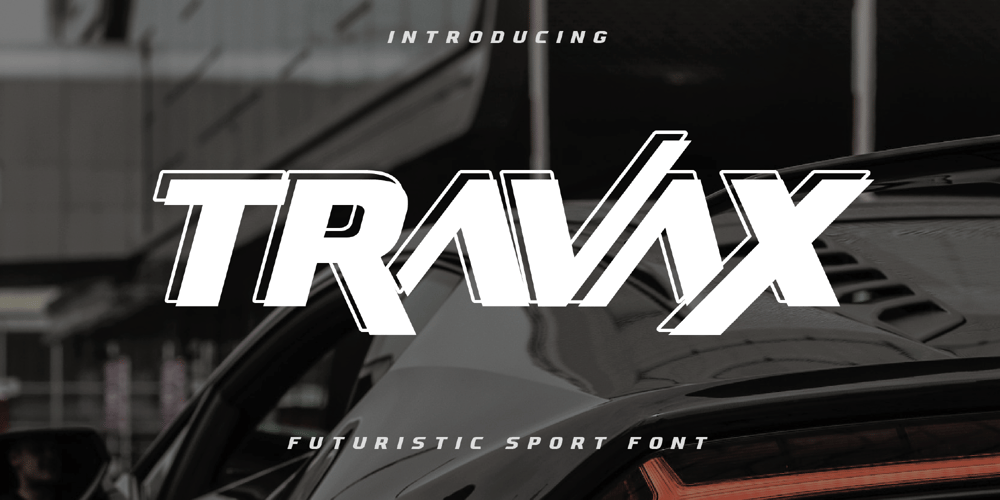
Travax
Travax font
Travax Font Family was designed by Achmad Yani and published by Flawlessandco. Travax contains 2 styles and family package options. Introducing “Travax” – A Futuristic Sport Font. Elevate your designs to new dimensions with “Travax,” a bold and futuristic sport font that embodies the spirit of progress and competition.There’s some connected letters and some alternates that suitable for any graphic designs.This font support for some multilingual. Also contains uppercase A-Z and lowercase a-z, alternate character, numbers 0-9, and some punctuation.If you need help, just write me! Thanks so much for checking out my shop!